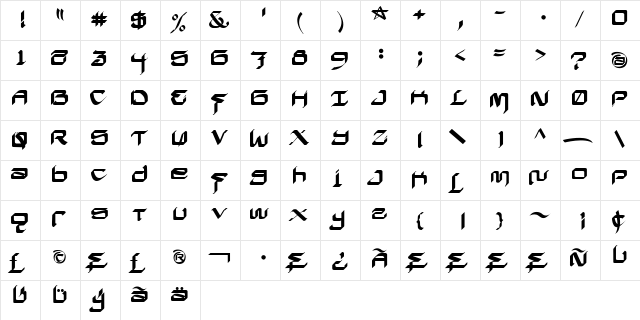
Califas-Wide Regular
| Foundry | Matthew Napolitano (raseone) |
| Designer | Matthew Napolitano (Raseone) |
Design Context for Califas-Wide Typeface
Califas-Wide is a composed and adaptable typeface that performs quietly and consistently across a wide range of design contexts.